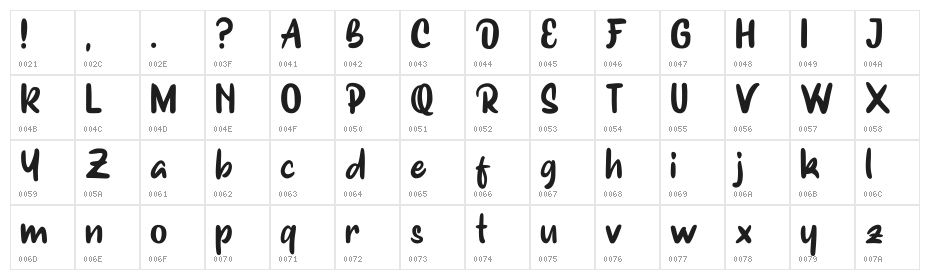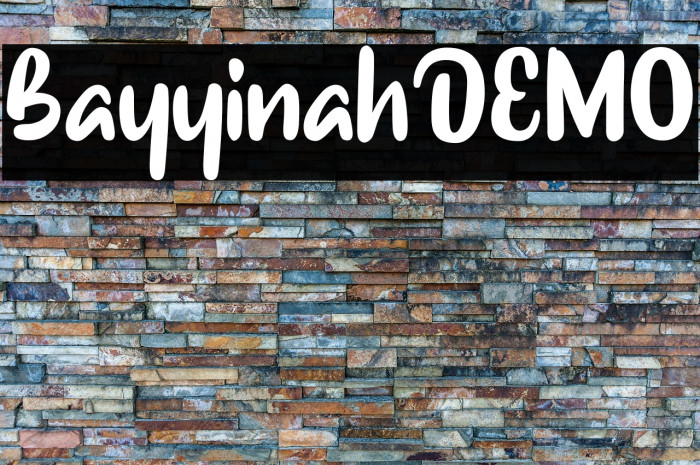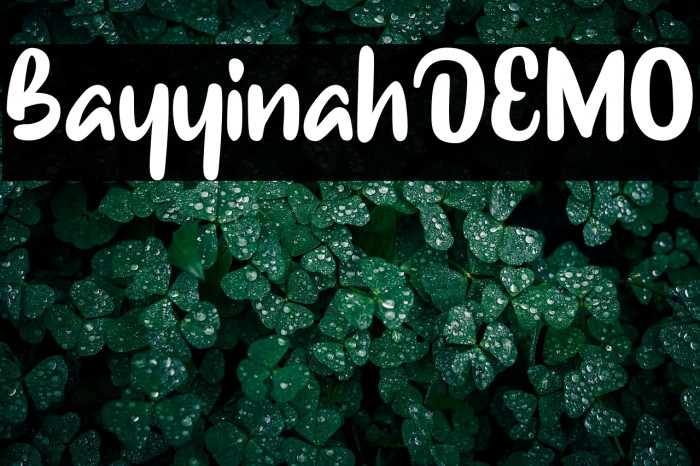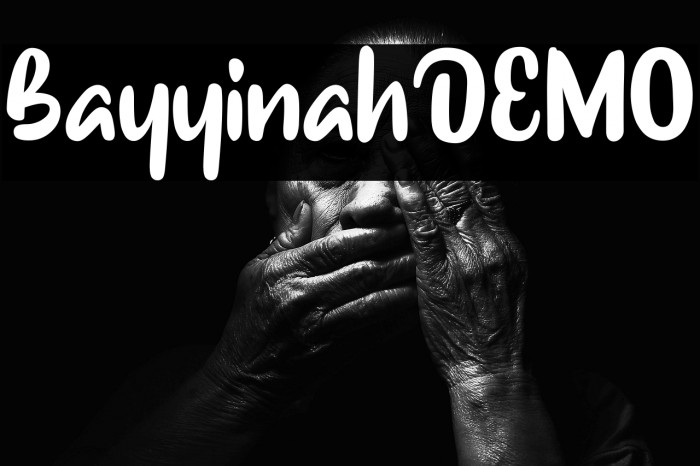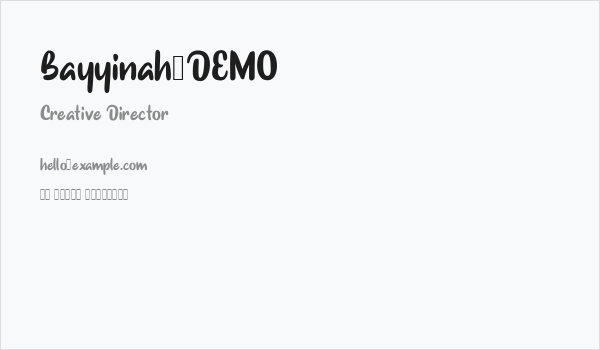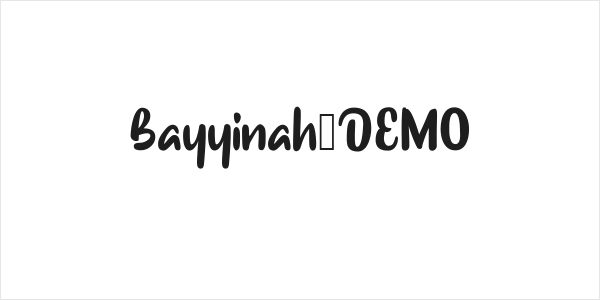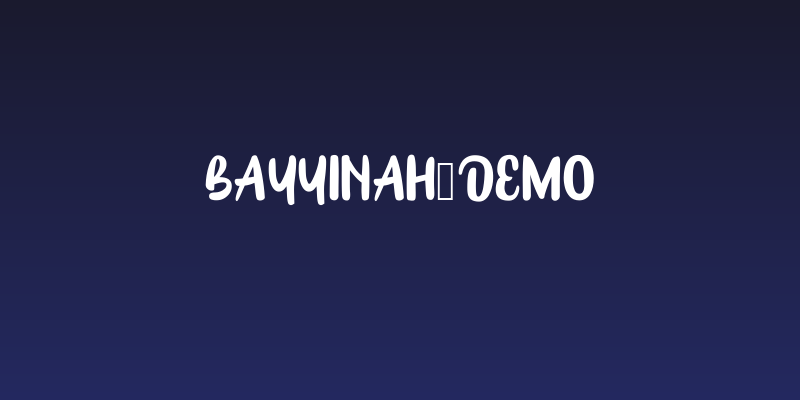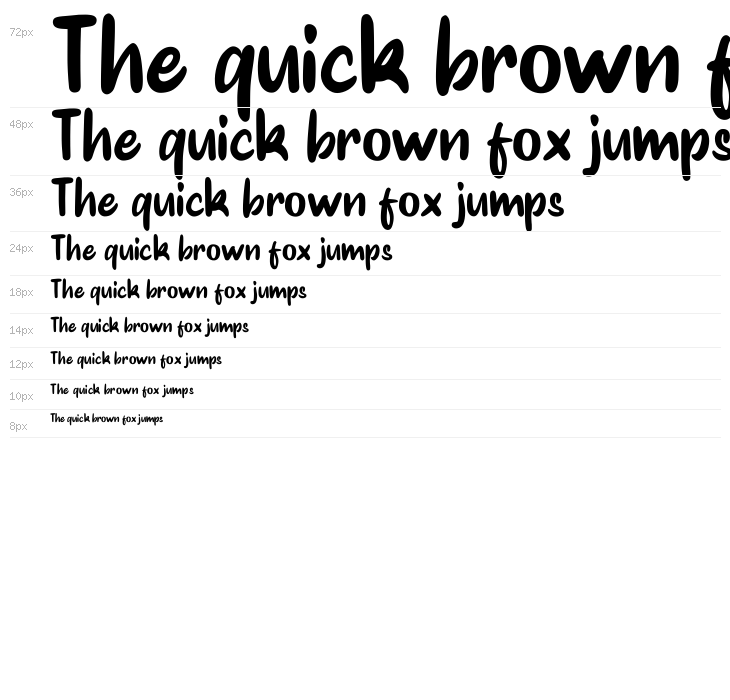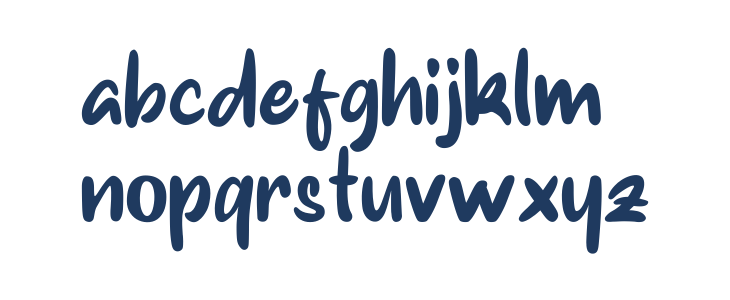
Bayyinah-DEMO Font
Bayyinah-DEMO Description
This font features a bold and playful script style with a handwritten feel. The characters are rounded and have a smooth flow, giving a sense of movement and energy. The uppercase letters are slightly larger and more prominent, while the lowercase letters maintain a consistent size and shape. The font includes a full set of uppercase and lowercase letters, as well as basic punctuation marks. The strokes are thick and uniform, providing a strong visual impact. This font is ideal for projects that require a friendly and approachable look, such as children's books, greeting cards, or playful branding.
Overall StylePlayful
Use CaseLogos, Headlines, Invitations
Proposed ProjectsIdeal for children's books, greeting cards, playful branding, and casual invitations.